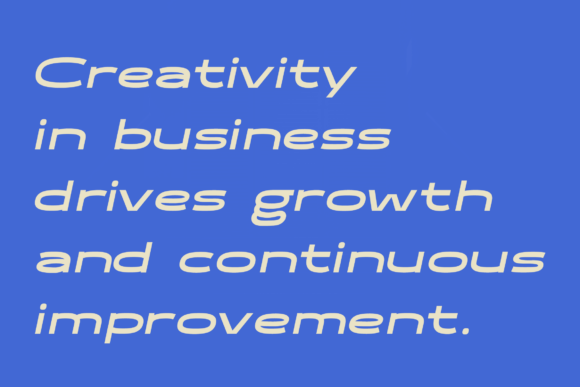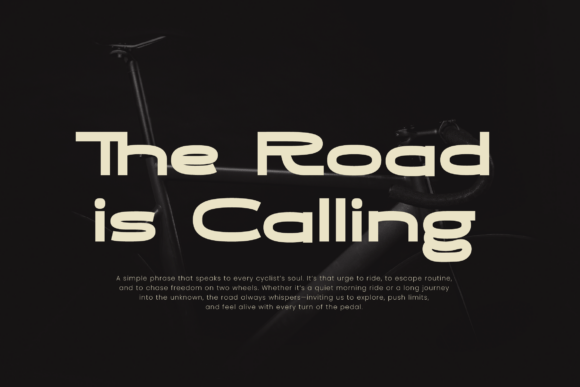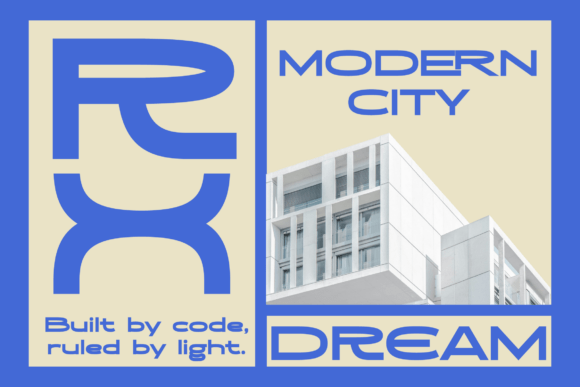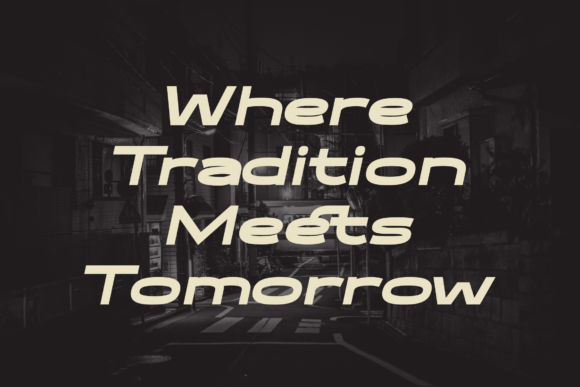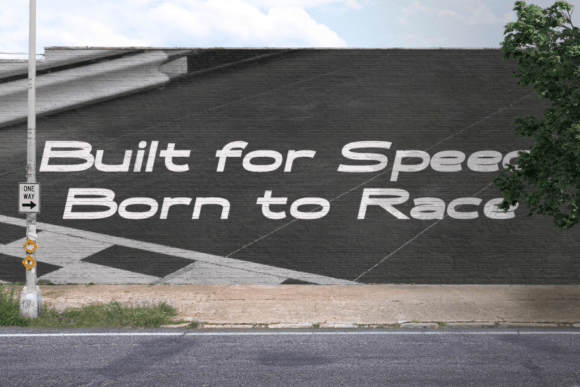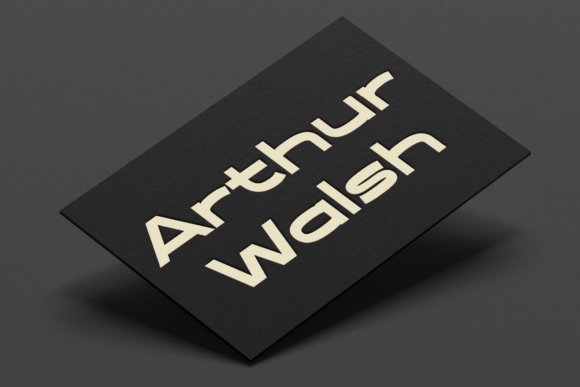
Unlocking the Futuristic Aesthetic of Afgeta Font
I’ll never forget the design moment that led me to discover Afgeta Font. I was working on a project for a tech startup, and my client requested a font that embodied innovation, sleekness, and a hint of sportiness. As I scrolled through my font library, I stumbled upon Afgeta, and it was love at first sight! ✨ The perfect blend of modernism and edginess had finally landed in my lap.
A Personal Review of Afgeta Font
- ✨ Sleek and modern design: Afgeta’s sans-serif lines and precision-chiseled aesthetic make it perfect for projects that require a futuristic feel.
- ✅ Versatility: This font seamlessly transitions from digital displays to print materials, making it a great addition to any design library.
- 💡 Innovative OpenType features: Afgeta’s advanced typography capabilities allow for creative experimentation and customization.
While Afgeta is an exceptional font, there are a few minor considerations to keep in mind: 🤔
- ⚠️ Limited use in body text: Afgeta’s sleek design is best suited for headlines and titles. For longer blocks of text, a more traditional font might be more readable.
- ⚠️ Glyph compatibility: Some glyphs or special characters might not work seamlessly across all platforms or software.
The Story Behind Afgeta Font
Afgeta’s design inspiration stems from the intersection of technology and art. Its creator, a forward-thinking typographer, aimed to craft a font that embodied the dynamism and innovation of the modern world. By combining the precision of digital design with the elegance of traditional typography, Afgeta was born – a font that’s equal parts modernist and edgy.
Q: What makes Afgeta suitable for futuristic designs?
A: Afgeta’s sleek lines, precision-chiseled aesthetic, and innovative OpenType features make it an ideal choice for projects that require a futuristic feel.
Q: Can I use Afgeta for body text?
A: While Afgeta is an exceptional font, it’s best suited for headlines and titles. For longer blocks of text, a more traditional font might be more readable.
Q: Is Afgeta compatible with non-Latin scripts?
A: Afgeta’s current version supports Latin-based languages. For non-Latin scripts, please check with the font’s creator or a reliable typography resource for compatibility information.